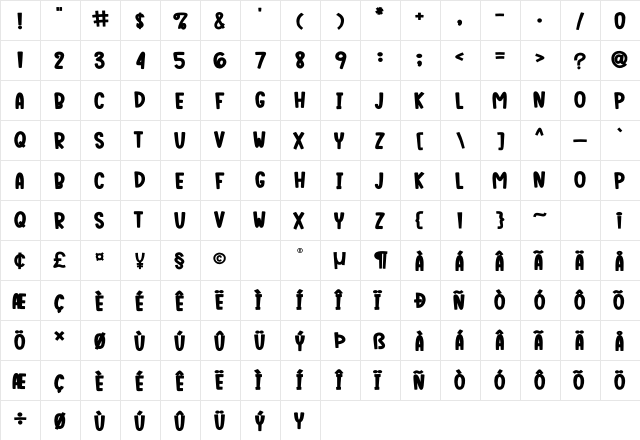
Mercoone Regular
Design Context for Mercoone Typeface
Mercoone is a composed and adaptable typeface that performs quietly and consistently across a wide range of design contexts.